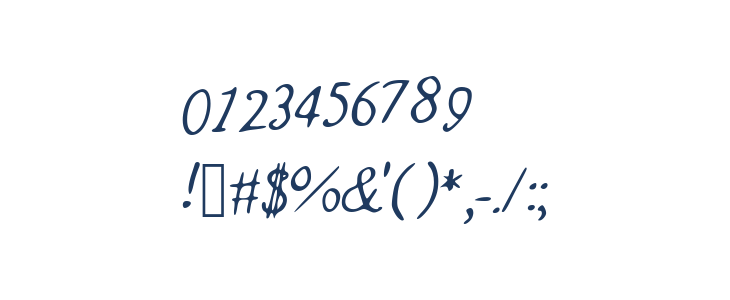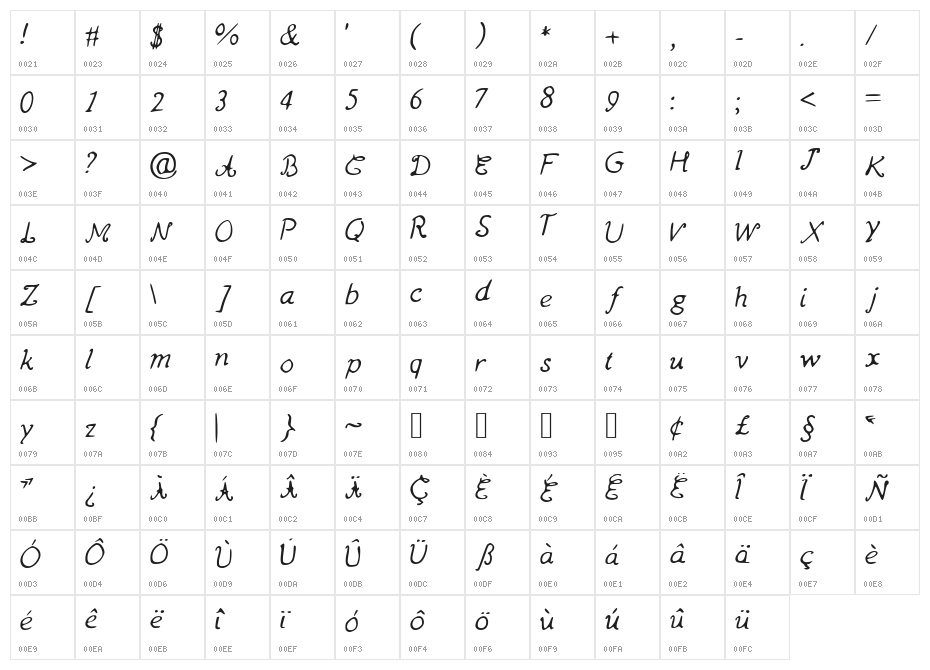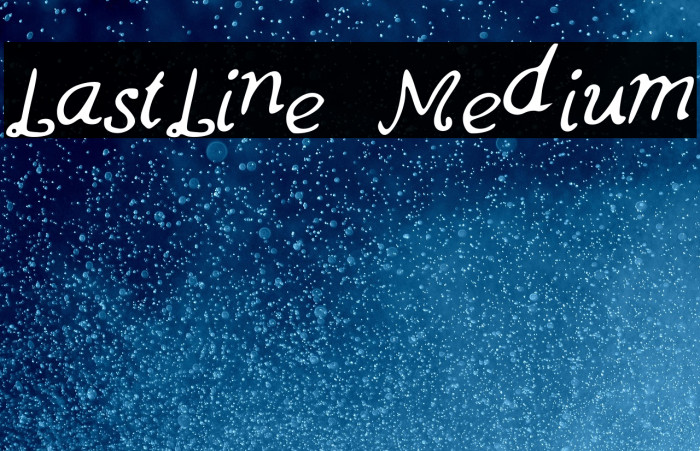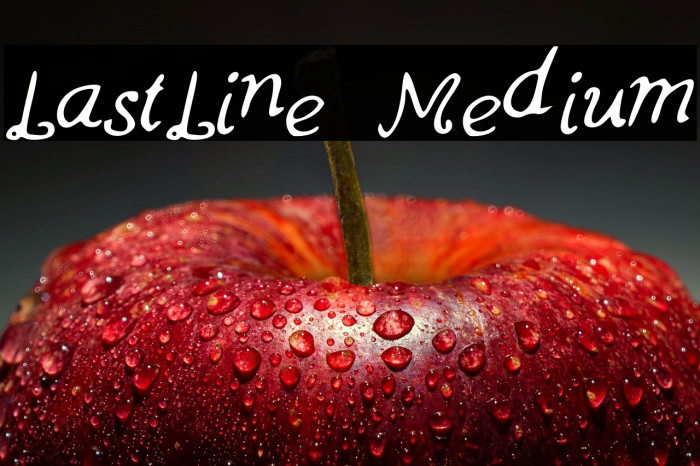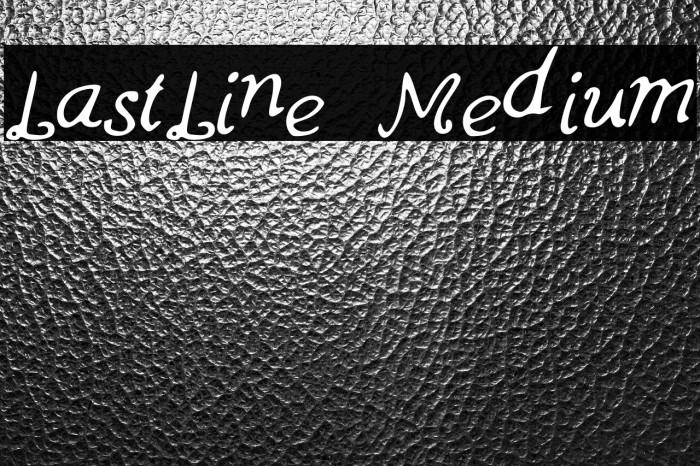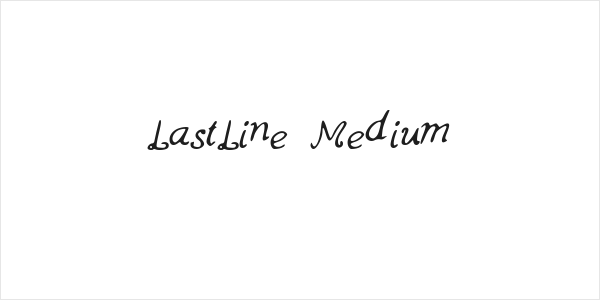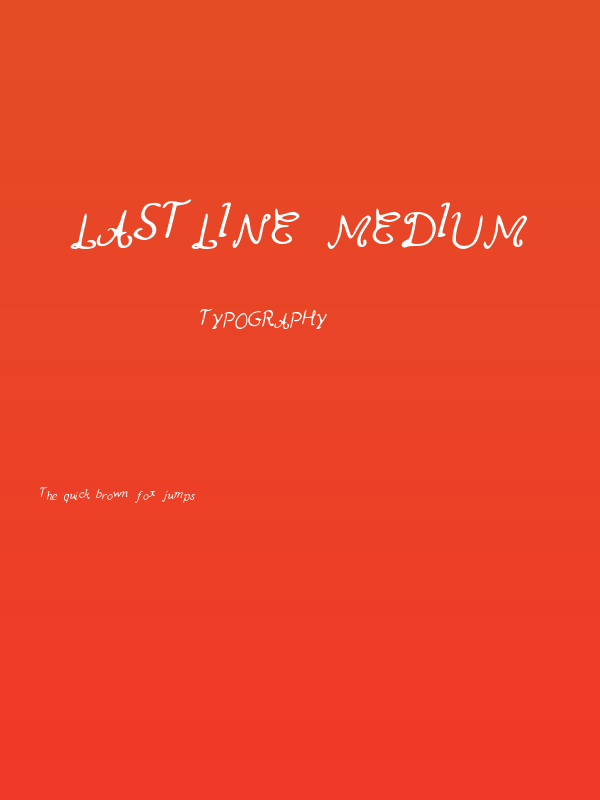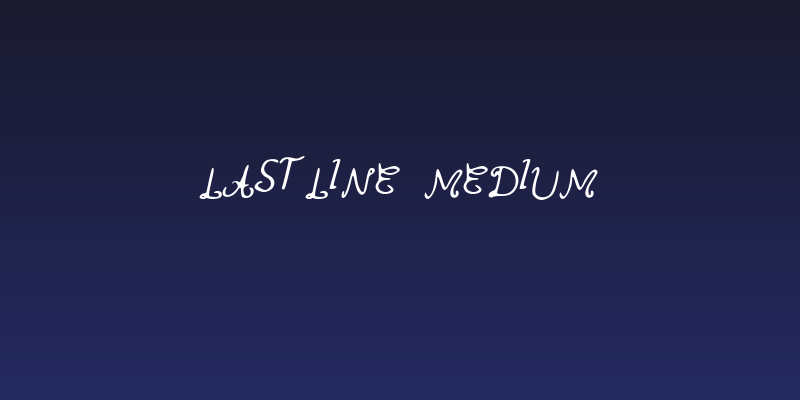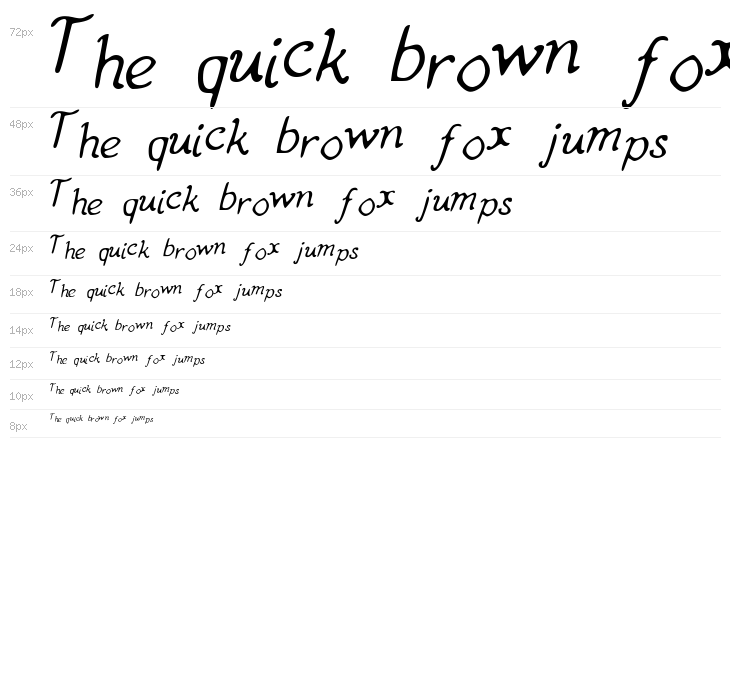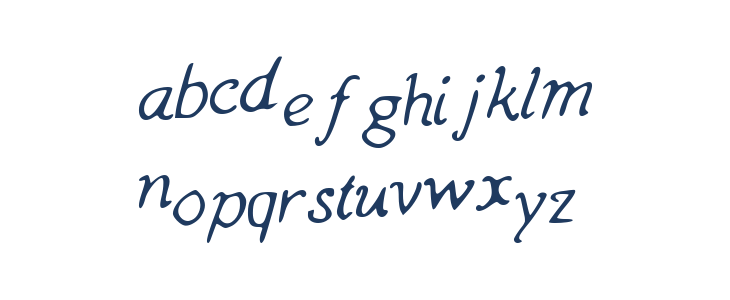
LastLine Medium Font
LastLine Medium Description
This font exudes a playful and artistic flair, characterized by its flowing, cursive style that mimics the fluidity of handwriting. The uppercase letters are elegantly crafted with varying stroke widths, adding a dynamic and lively touch to the text. The lowercase letters maintain a consistent rhythm, with smooth curves and loops that enhance readability while preserving the font's unique personality. Numbers and special characters are designed to complement the overall aesthetic, ensuring a cohesive look across all text elements. This font is ideal for projects that require a personal and creative touch, such as invitations, greeting cards, and artistic branding.
| Use Case | Headlines, Artistic text, Invitations |
| Proposed Projects | Ideal for invitations, greeting cards, artistic branding, and creative projects. |